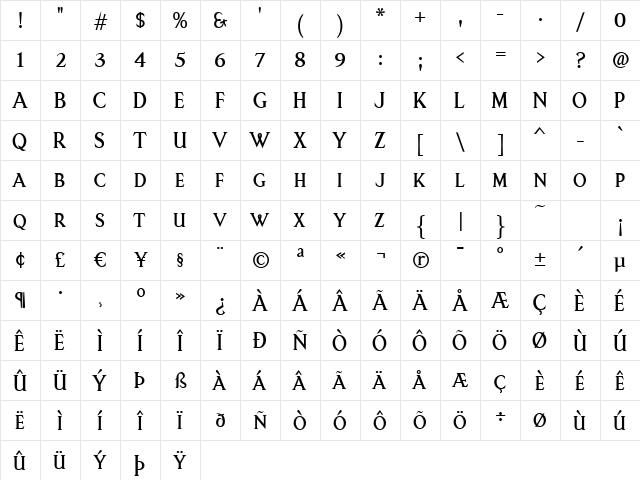
Anarcharsis SC Bold Font Preview
Anarcharsis SC Bold
Anarcharsis SC Bold Font Details
Design Context for Anarcharsis SC Typeface
Anarcharsis SC is a composed and adaptable typeface that performs quietly and consistently across a wide range of design contexts. The heavy weight commands attention and anchors typographic hierarchies.